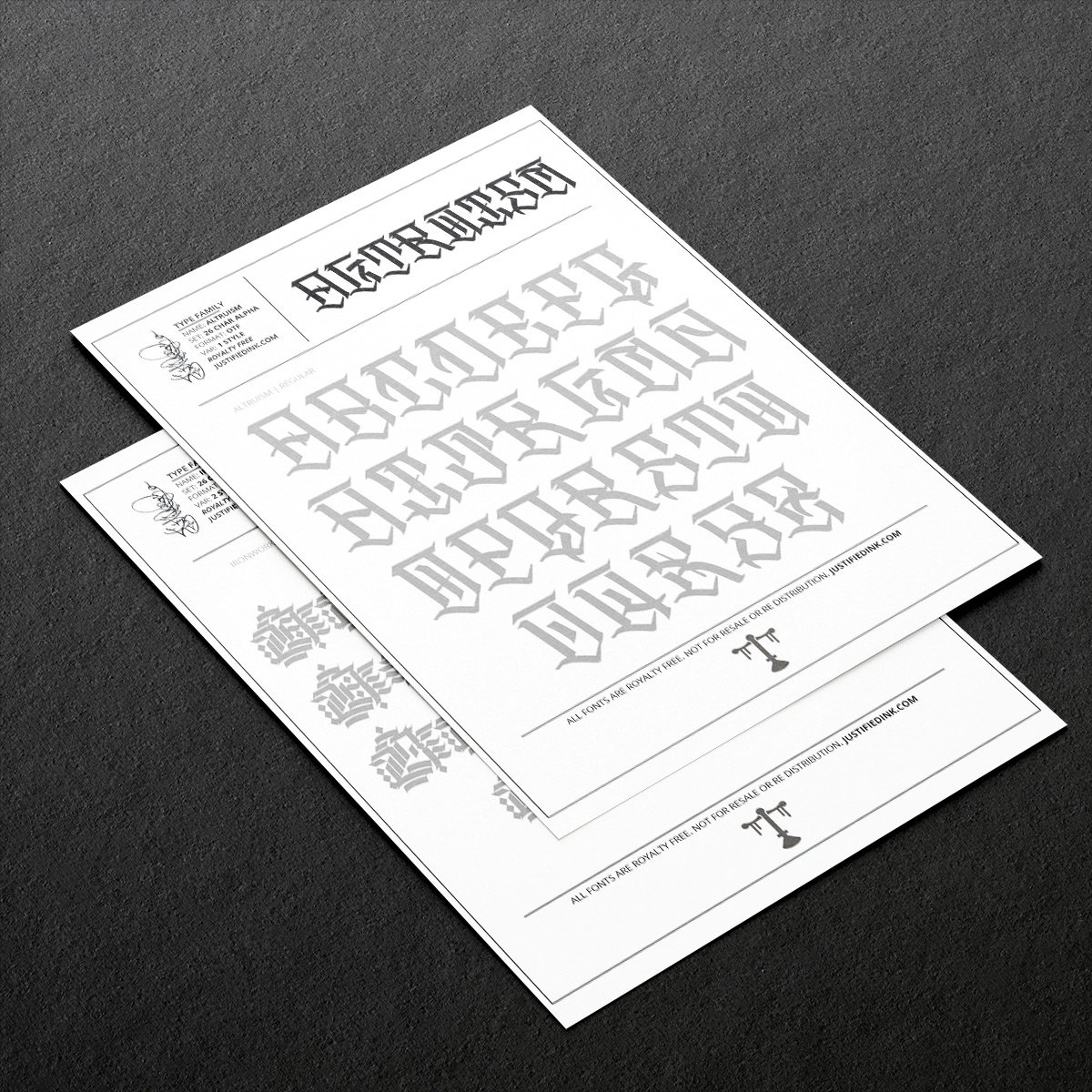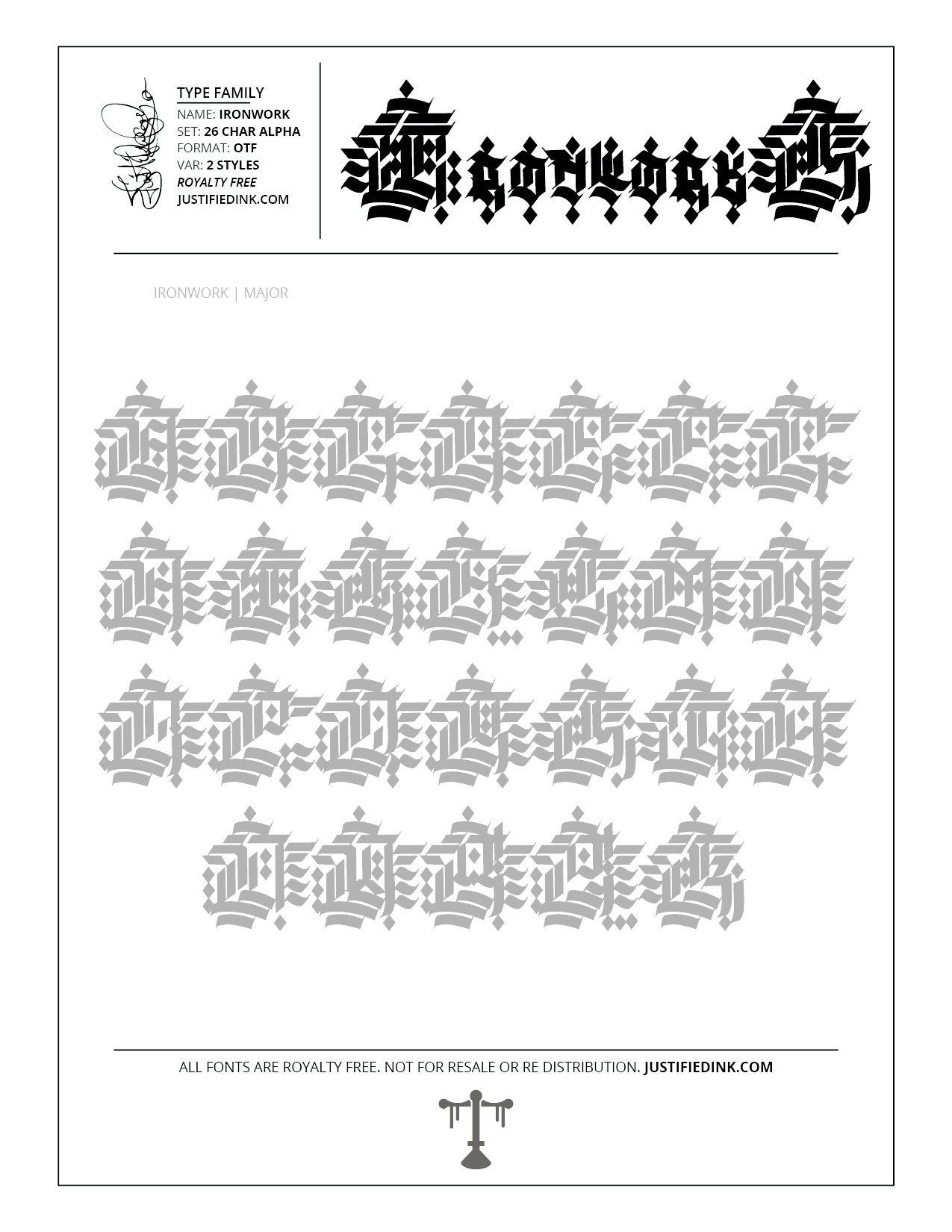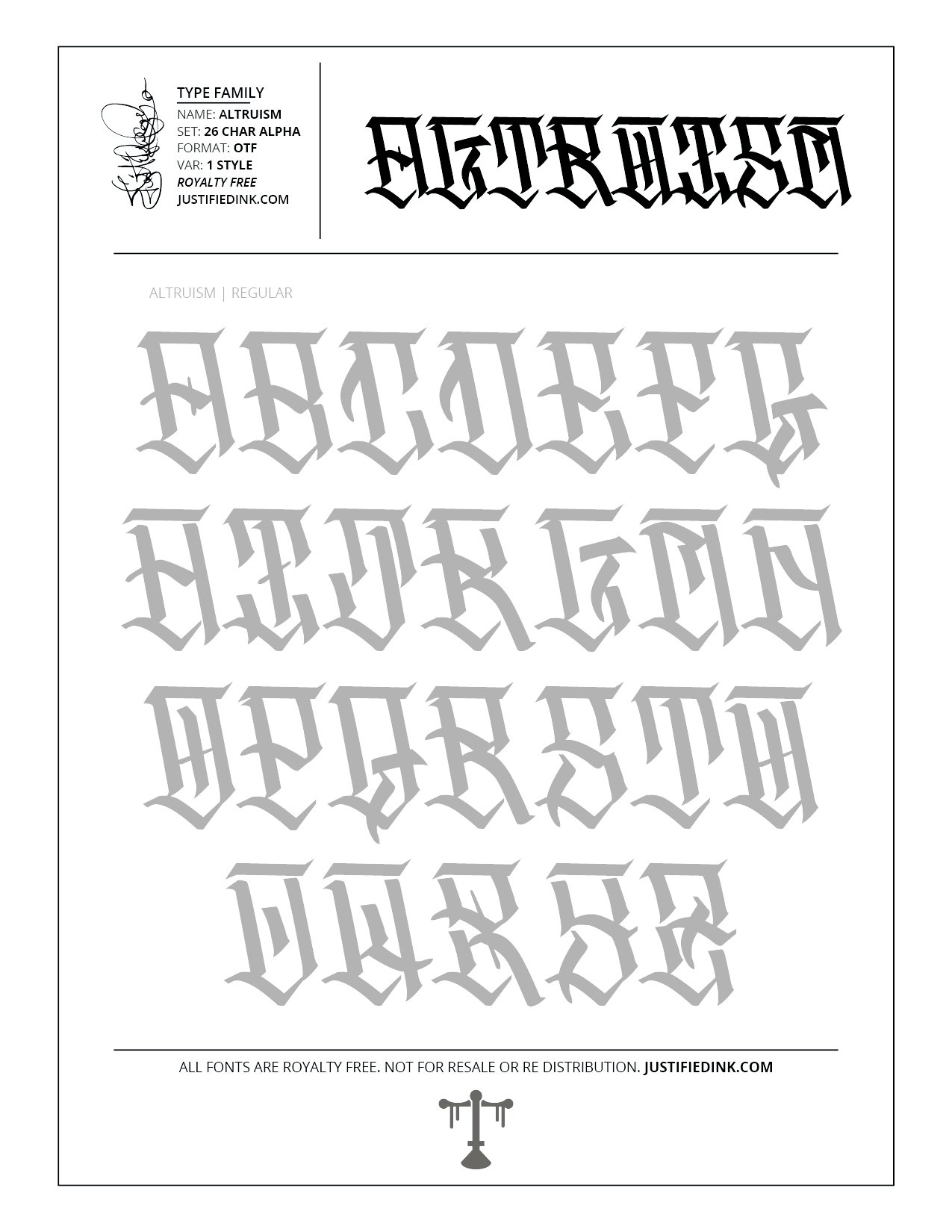
Blackletter II Font Practice Sheets (Digital Download)
Blackletter II Practice Sheets
Enter the next chapter of the ritual.
The Blackletter II Practice Sheets package offers 50 practice-ready templates sourced from 29 distinct gothic fonts, blending centuries of tradition into a tool for modern hands. Designed for both beginners and seasoned scribes, these sheets invite you to trace, inscribe, and breathe life into the ancient forms—whether by pen, marker, or stylus.
Each page is crafted to summon your flow state: no guesswork, no hesitation—just pure movement across living letterforms. The collection includes two blank alphabet grids for your own conjurations and a complete digital copy of the Blackletter II Font Book to deepen your study.
This is more than practice—
it's initiation.
Perfect for those who seek mastery in blackletter calligraphy, tattoo lettering, apparel design, and atmospheric artwork.**
Blackletter II is a cornerstone collection by Justified Ink. After 15+ years of honing my craft, I dedicated three years to an intensive process of daily practice, creating hundreds of pages of hand-drawn lettering. Every font in Blackletter II has been meticulously hand-drawn, digitized, and transformed into a fully typeable format. Most featuring a complete 26-character alphabet, along with variations and supplemental non-alphabetic characters, this collection celebrates bold, expressive Blackletter styles, blending traditional craftsmanship with modern versatility.
Trace it. Shape it. Summon it.
This is where your ink journey sharpens its edge.